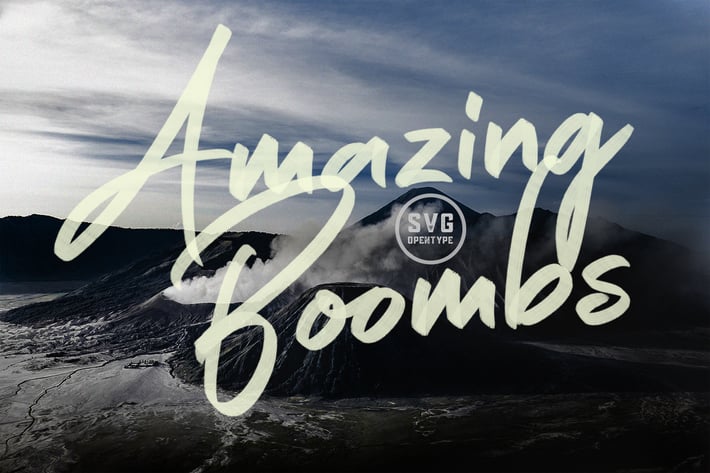
Amazing Boombs SVG Font
Introducing Amazing Boombs SVG Font! An amazing, realistic brush pen script font with a fast flow and dry textures to the max. Get a signature made of stunning brush pen texture. Now you don't have to worry anymore, because a real writing is present.
4. Unique Ligatures